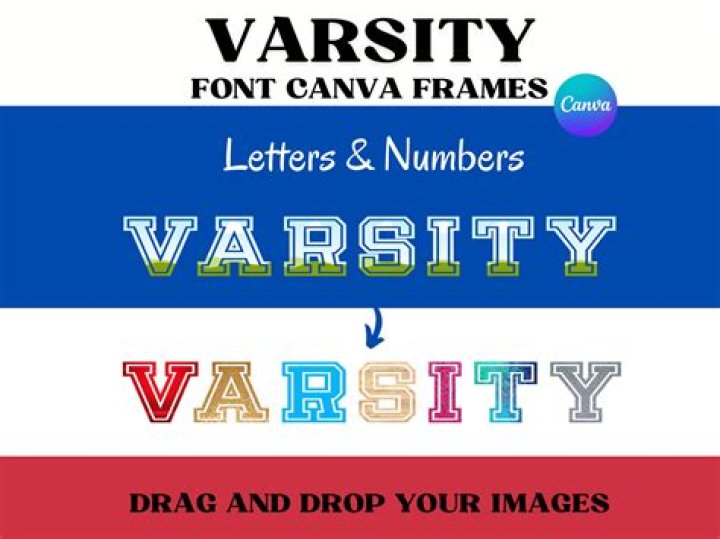
What font is Varsity letter?
Does Cricut have a varsity font?
The Cricut Lite Varsity Letter cartridge contains two letterman jacket-themed uppercase fonts that are great for your graduation announcements, posters, pep rallies, and other school- or sports-related projects.
What is the sport font called?
Jersey M54 is a classic and rugged font perfect for apparel design and the numbering and lettering on sports jerseys.
What is the best font for sports?
What is a block font?
Block fonts are a somewhat subjective category of fonts that share certain characteristics. They are easy to read and well-suited for signs and short headlines. Block fonts have strokes that are the same thickness. Strokes are the main lines and curves that form the shape of the letter.